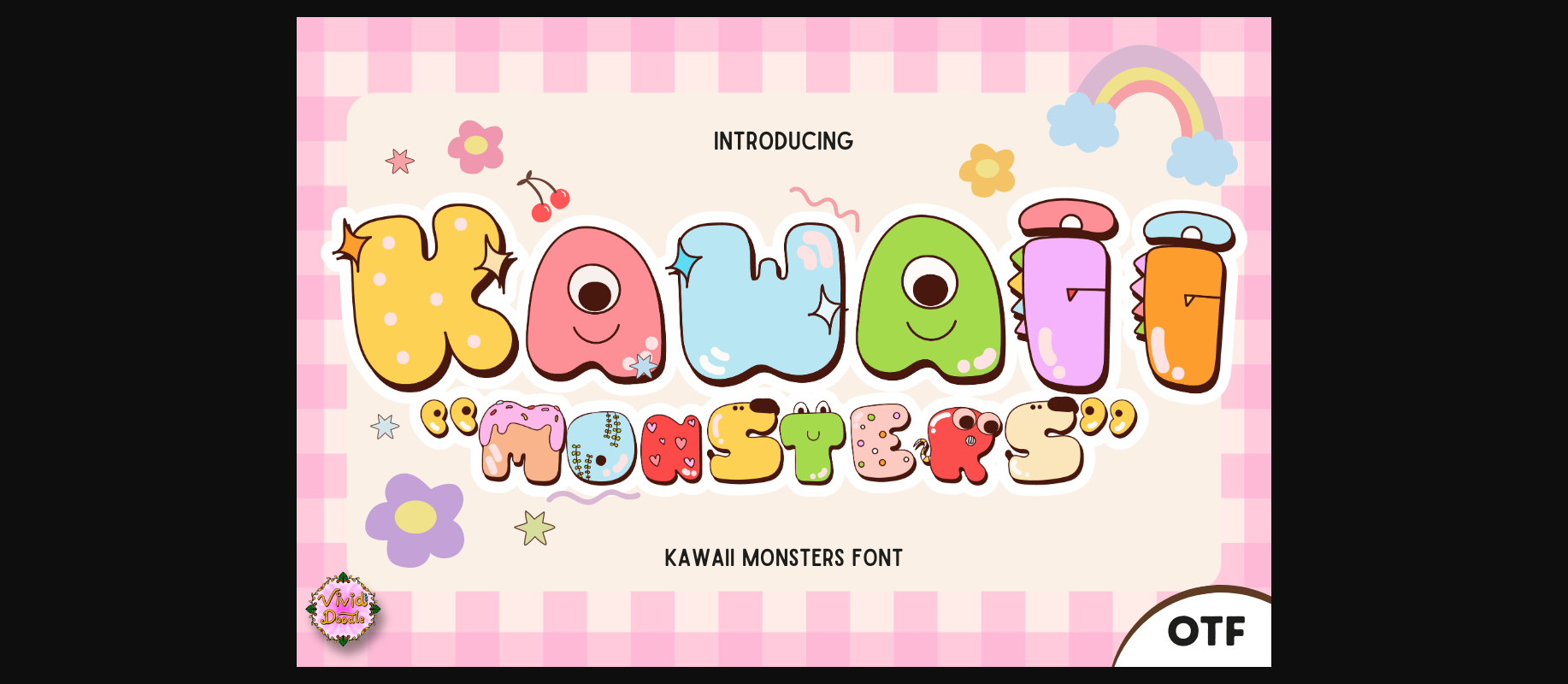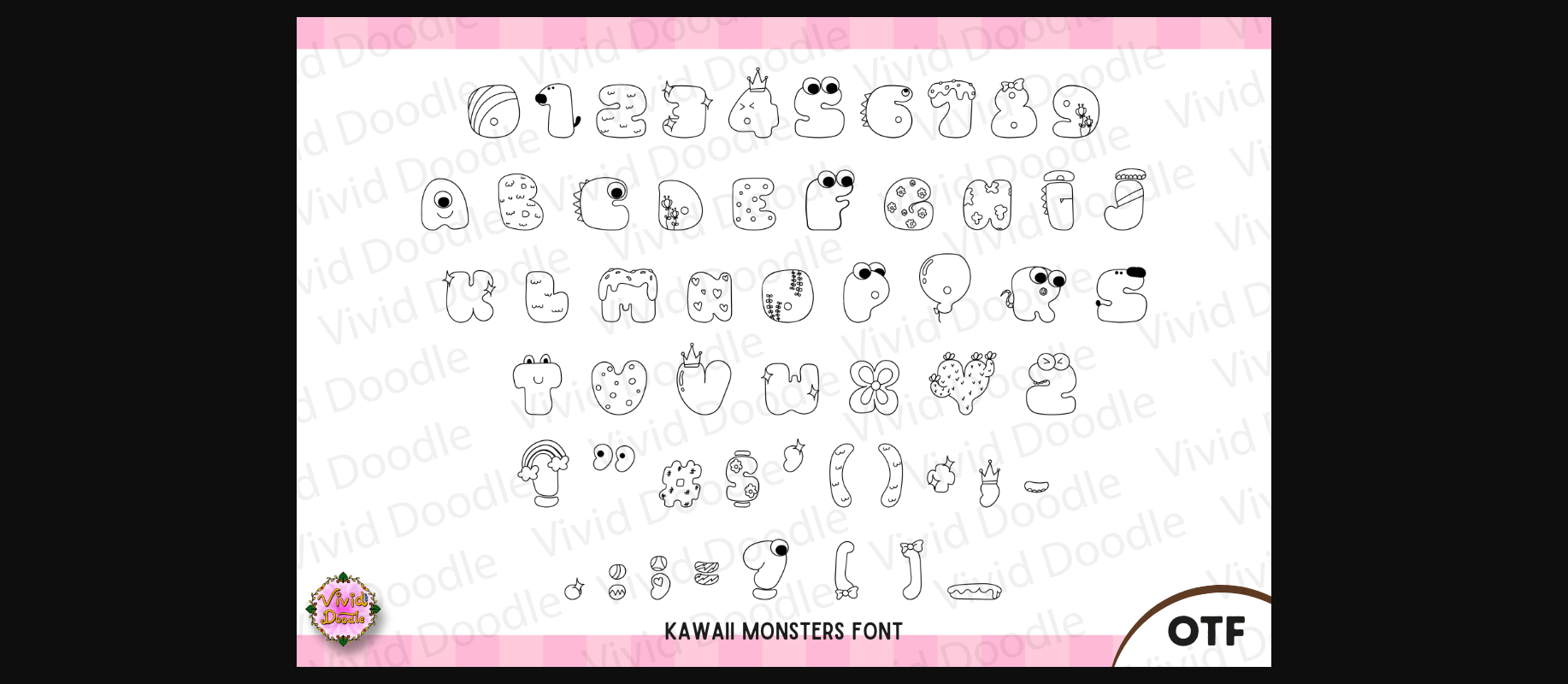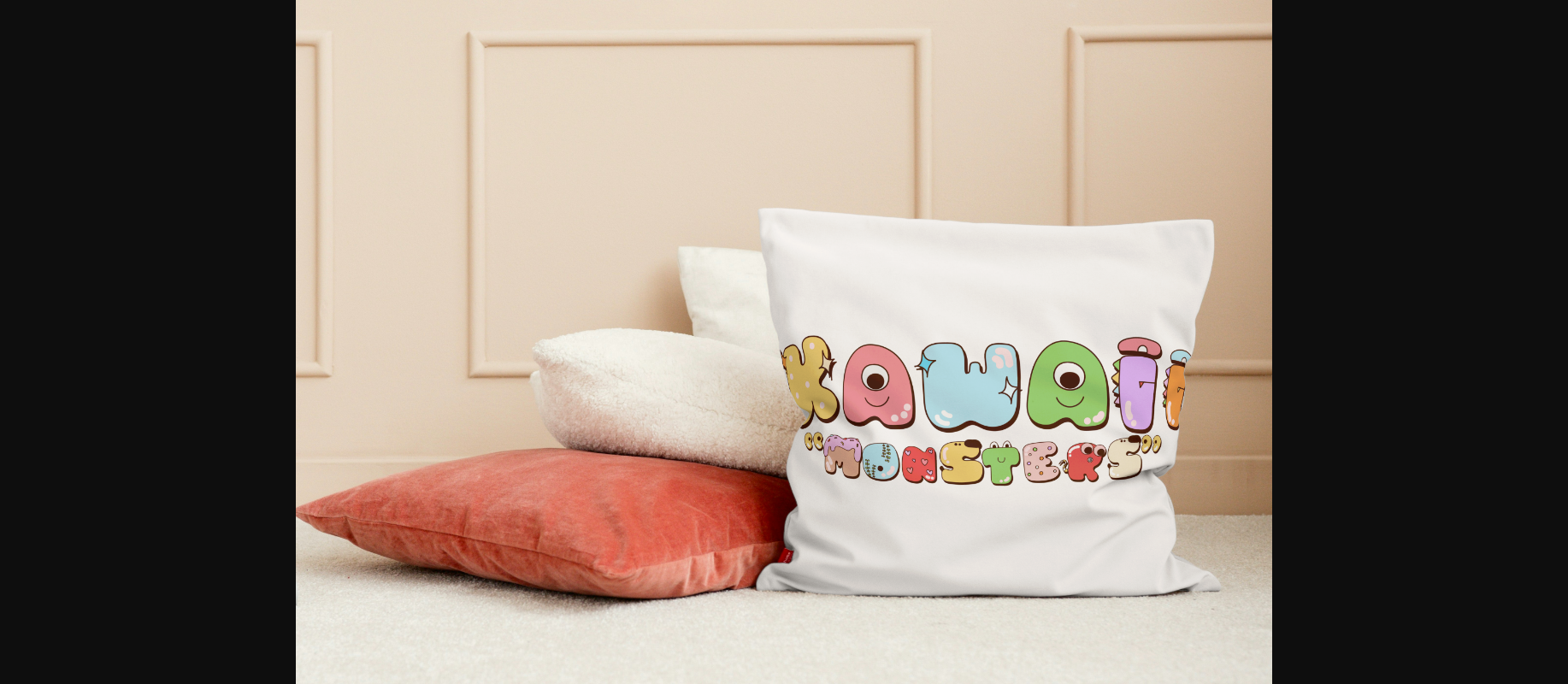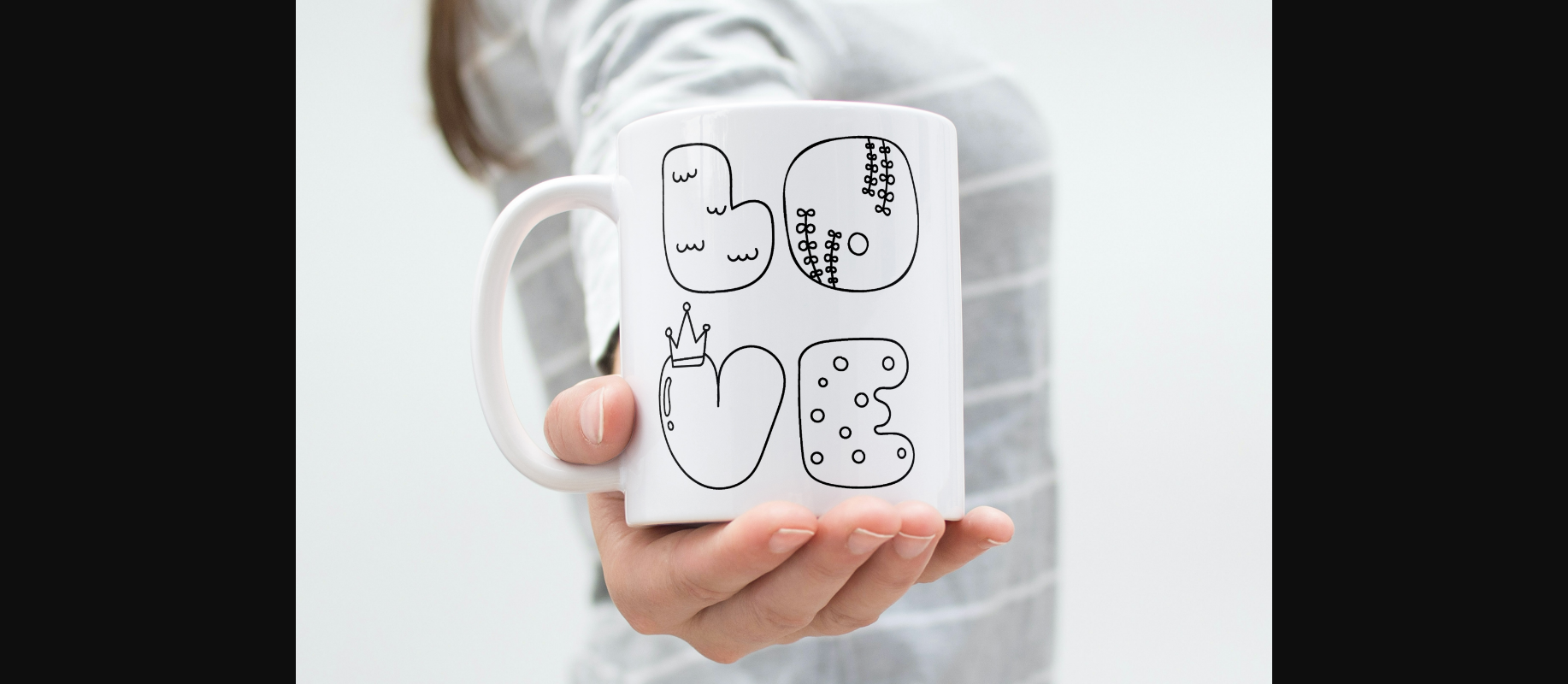
Kawaii Monsters Font
About Kawaii Monsters Font
Introducing Kawaii Monsters — a cute and playful typeface perfect for cartoon designs, kids’ projects, schools, education materials, weekends, parties, holidays, and various creative projects. This lively alphabet is ideal for designing posters, invitations, headers, titles, greeting cards, lettering, and more. Elevate your designs with the adorable charm of this font, turning each piece into a visually engaging and creatively crafted expression. Transform your projects into a celebration of cuteness, creativity, and fun with this uniquely designed and versatile font.